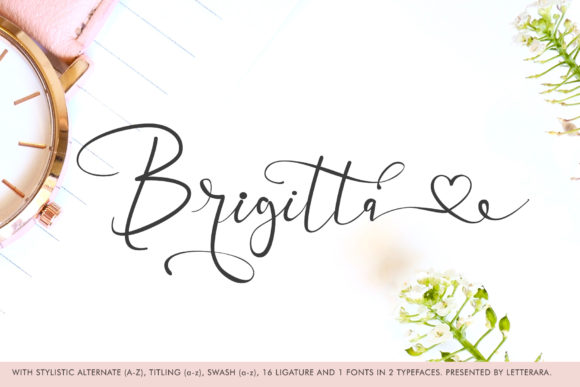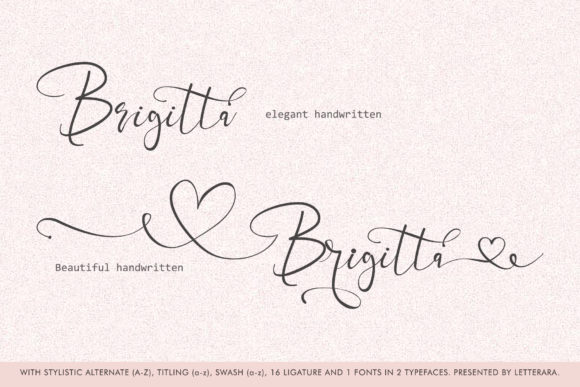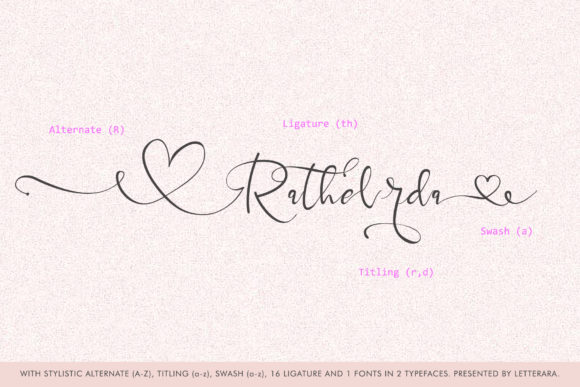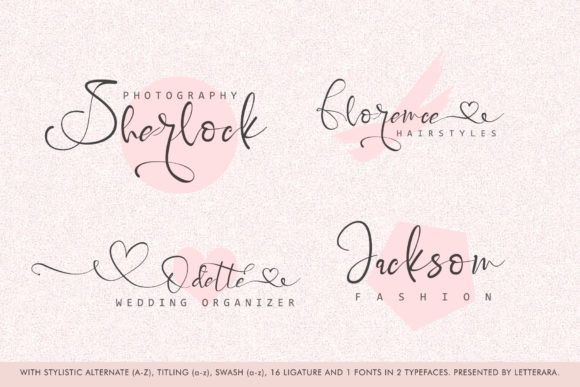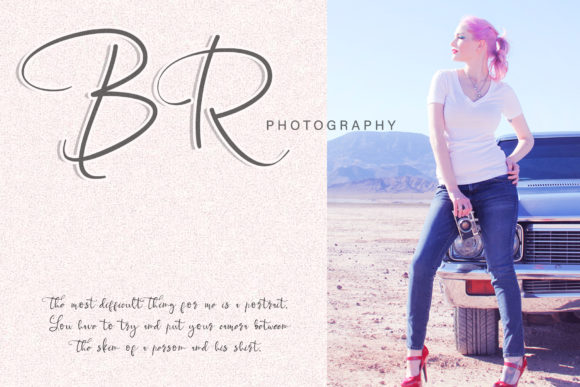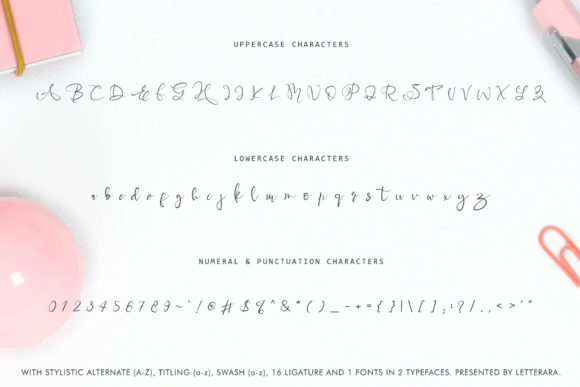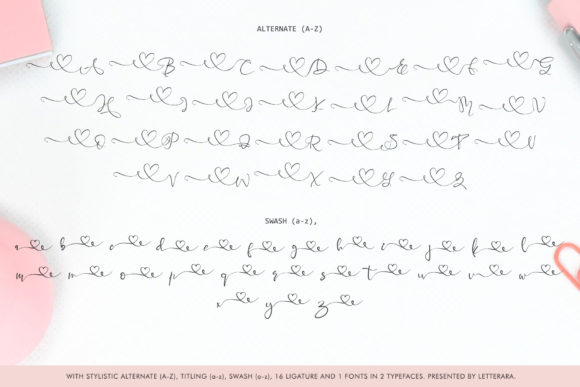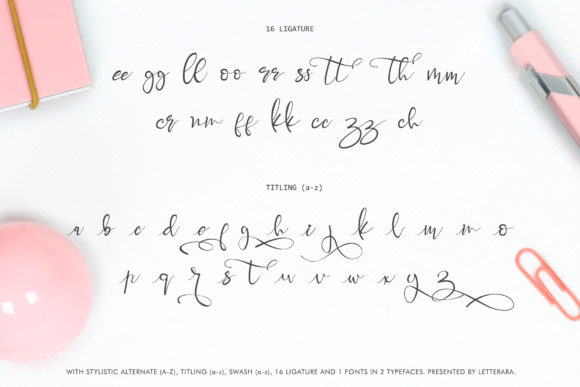
Brigitta Font
Carefully designed, Brigitta is a stunning and beautiful handwritten font with a light feel. Fall in love with its delicate and sophisticated characters, and use it for any design project that requires a romantic twist.